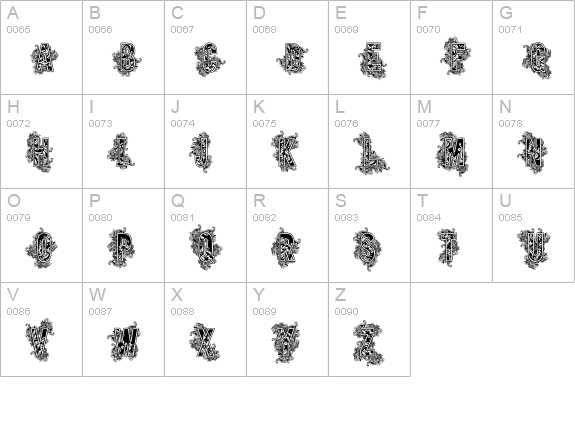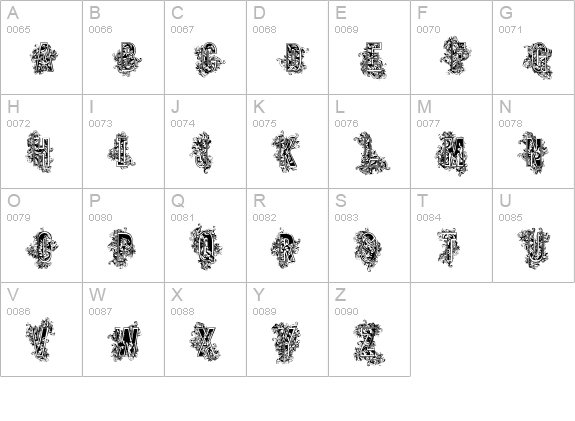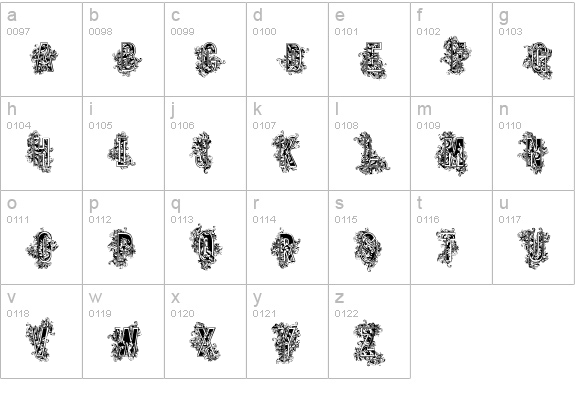
VTKS BEAUTY Font Details
VTKS BEAUTY font is a stunning display typeface that exudes elegance and charm. With its intricate and graceful letterforms, this font is perfect for adding a touch of sophistication to your designs. The flowing lines and delicate curves of VTKS BEAUTY give it a unique and stylish look that is sure to captivate any audience. The best part about VTKS BEAUTY font is that it is completely free to download at FontsMarket.com. This means that you can easily add this beautiful font to your collection without any cost. Whether you're working on a branding project, wedding invitation, or any other creative endeavor, VTKS BEAUTY font will elevate your design to new heights. Embrace the beauty and elegance of VTKS BEAUTY font in your projects today and watch as it transforms your designs into works of art. Download this exquisite font for free at FontsMarket.com and let your creativity shine with every letter you write.